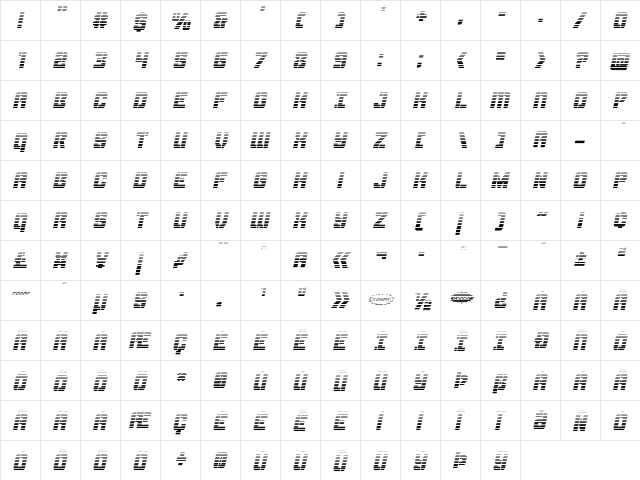
Thunder Trooper Gradient Italic Italic
Design Context for Thunder Trooper Gradient Italic Typeface
Thunder Trooper Gradient Italic is a composed and adaptable typeface that performs quietly and consistently across a wide range of design contexts. The dynamic lean of this cut emphasises speed and emphasis in any layout.
Pro Tip: Use Thunder Trooper Gradient Italic for emphasis, pull quotes, and subheadings where its slanted energy can add rhythm to the layout.